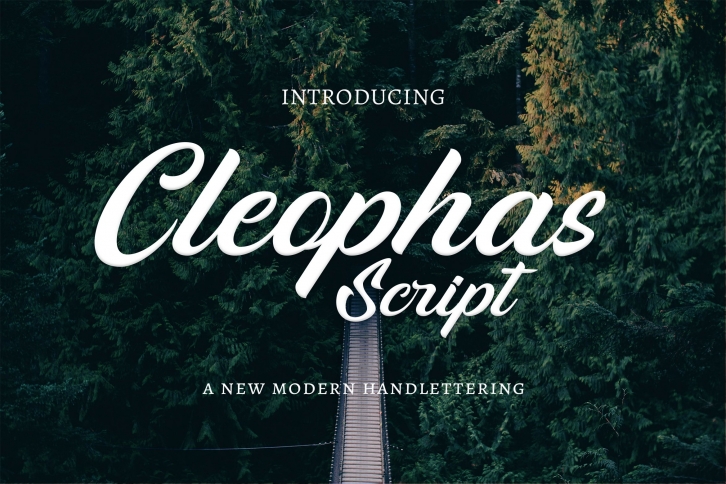
Cleophas Script is a great font that was designed by Alpha leonis store. Imagine the amount of combinations you can create using this font! The archive is 15.58 MB and it was released on May 9, 2022. Cleophas Script looks beautiful on wedding invitations, greeting cards, logos, posters, labels, t-shirt designs, logos, business cards and is perfect for use in ink or watercolor works, fashion, magazines, packaging and food menus, children's books and more!